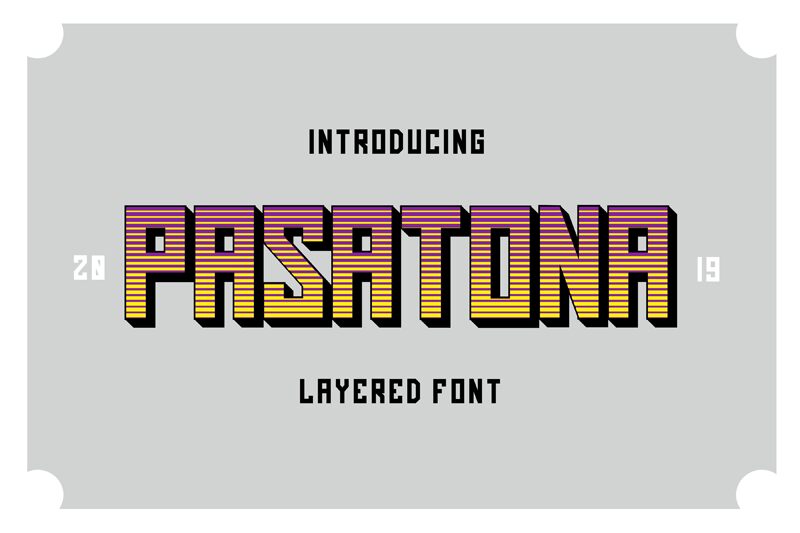
Pasatona Shadow
Pasatona Shadow emerges as a standout typeface from the Pasatona family, showcasing the innovative vision of designer Farul Arjianto of Typefar. This display font captures attention with its 3D, techno aesthetic that exudes modernity and sophistication. The extra-condensed width of Pasatona Shadow adds a sleek edge to its structural design, making it an exceptional choice for titles and headings that demand impact.
The distinct shadow effect crafted into each letterform provides depth, enhancing visual appeal and creating a sense of dimensionality rarely achieved in typography. Pasatona Shadow's bold presence is perfectly suited for creative projects that aim to make a statement - from cutting-edge branding initiatives to contemporary graphic art.
Its unique style harmoniously blends the technological with artistic flair, ensuring that any project utilizing Pasatona Shadow will stand out with a futuristic charm. Whether you're designing for digital platforms or print media, this font's versatility will inject your work with an unmistakable character that is both eye-catching and memorable.